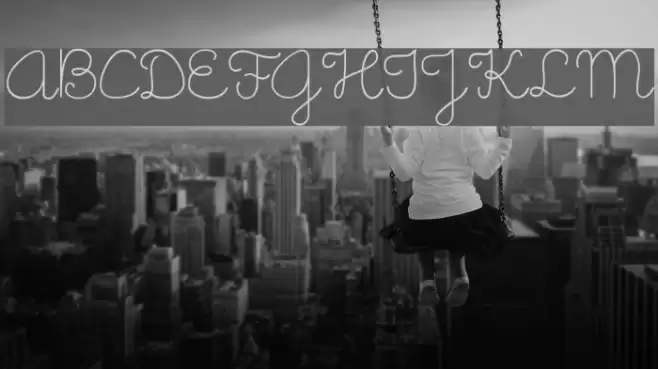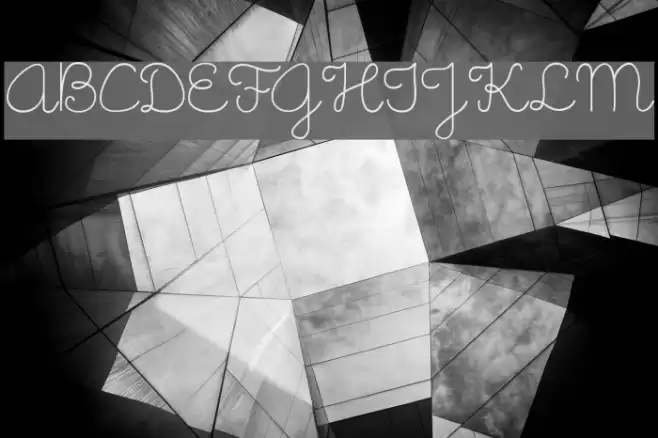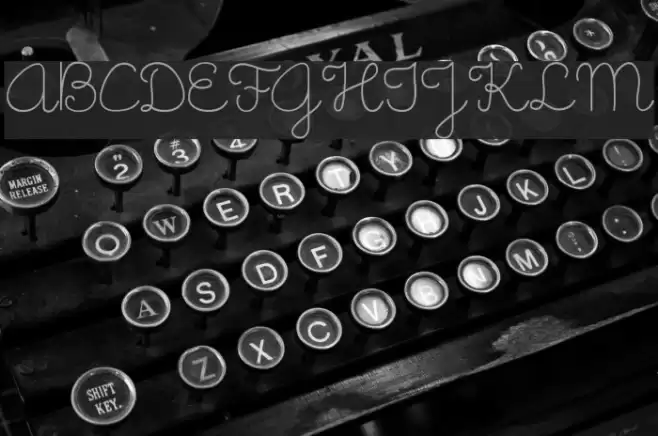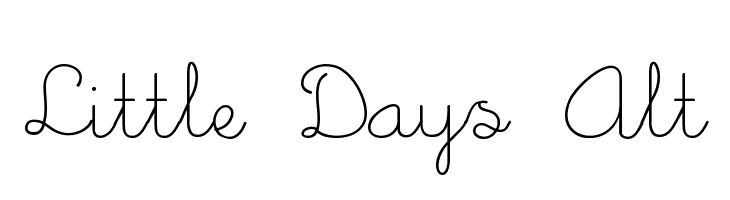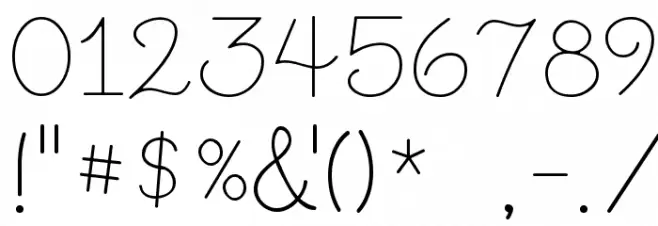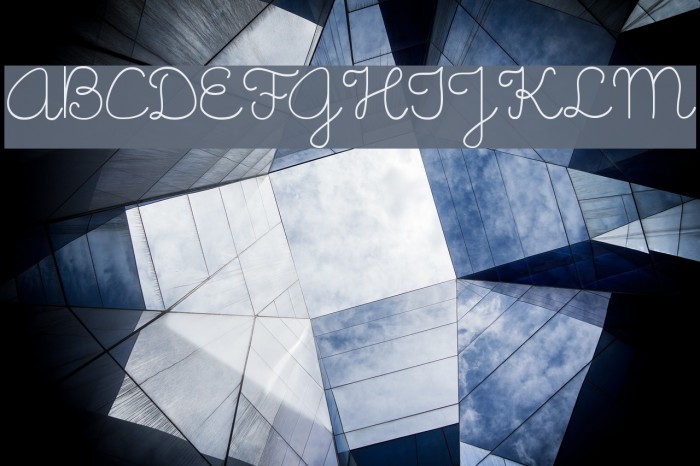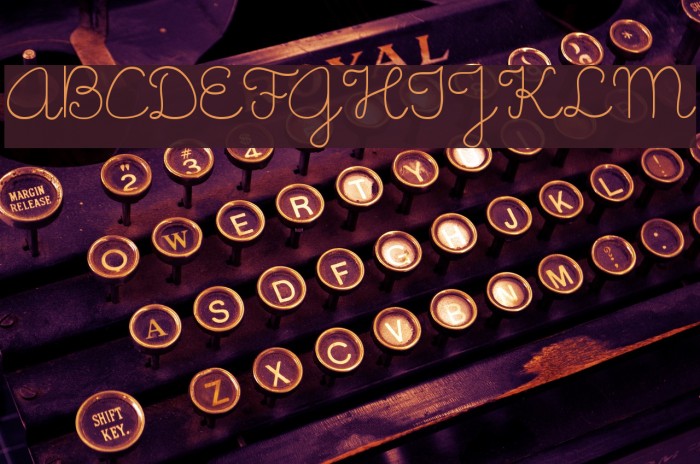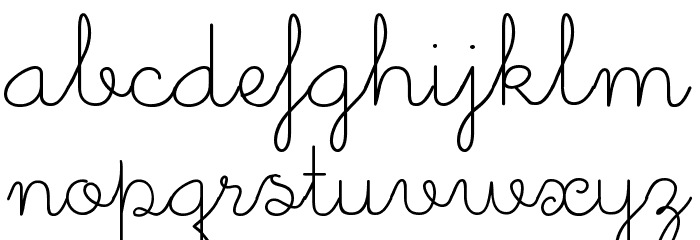
Little Days Alt Font
Little Days Alt Description
This font exudes a playful and whimsical charm with its flowing, cursive style. Each letter is crafted with a delicate, continuous line that mimics the fluidity of handwriting. The uppercase letters maintain a consistent height, while the lowercase letters exhibit a gentle slant, adding to the font's casual elegance. The numerals are clear and easy to read, maintaining the same cursive style. Special characters are thoughtfully designed to match the overall aesthetic, ensuring a cohesive look across all text. This font is perfect for projects that require a personal touch, such as invitations, greeting cards, or branding materials that aim to convey warmth and approachability.
A playful, cursive font with a whimsical, handwritten style from Handwritten fonts.
- Proposed Projects: Ideal for invitations, greeting cards, personal branding, and creative projects.
- Overall Style: Whimsical, Playful
- Use Case: Headlines, Invitations, Greeting Cards